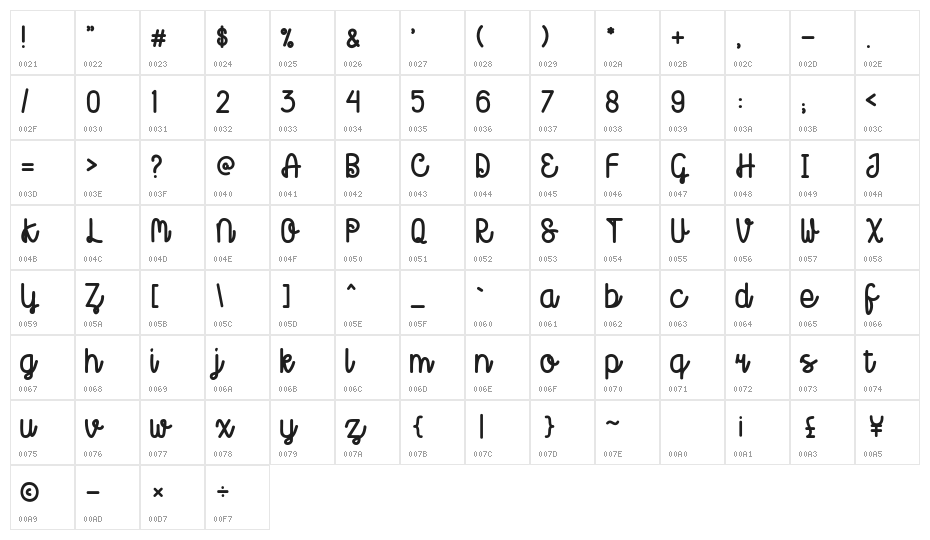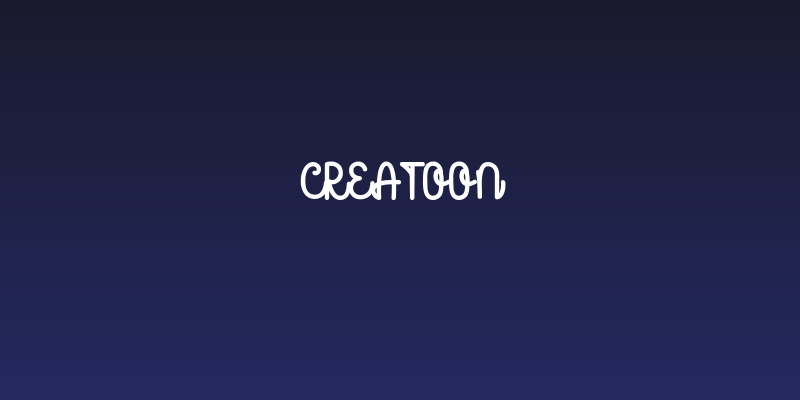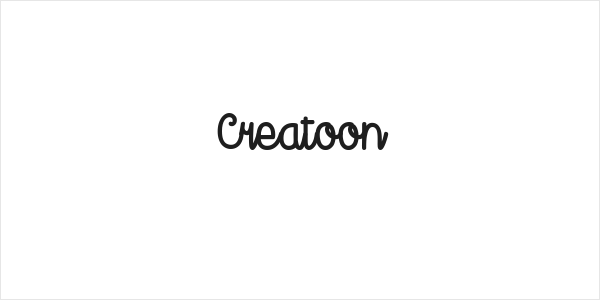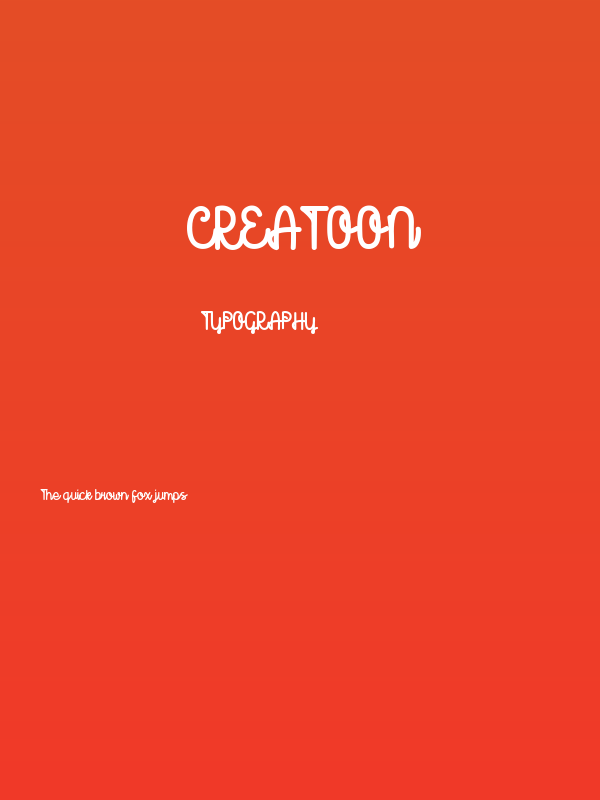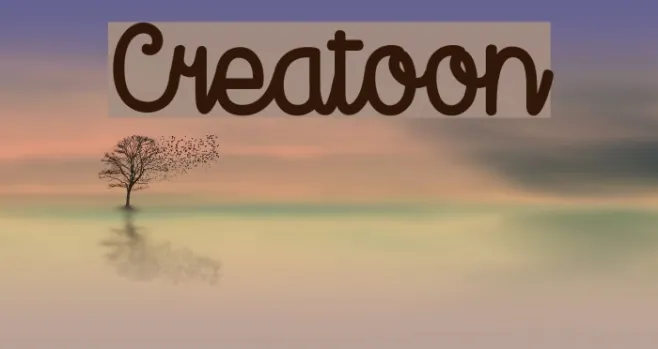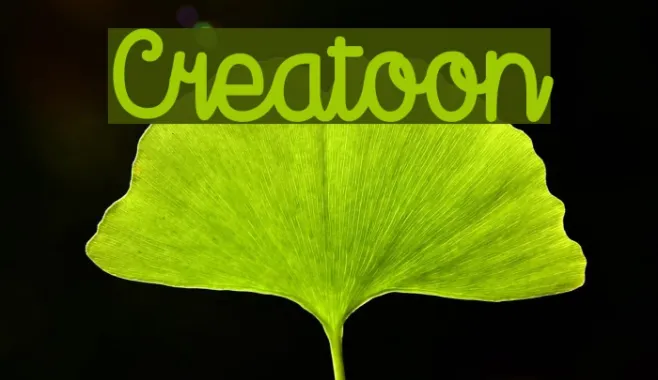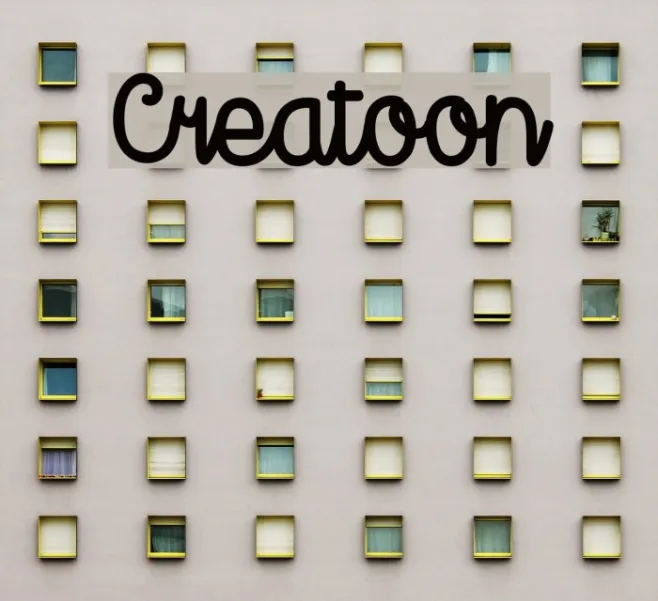
Creatoon Font
Creatoon Description
This playful and whimsical font features a bold, rounded style with a hand-drawn appearance. The characters are interconnected, giving a sense of fluidity and movement. The uppercase letters are slightly larger and more pronounced, while the lowercase letters maintain a consistent flow. Numbers and special characters are designed to match the playful aesthetic, making the font suitable for creative and informal projects. The overall look is friendly and approachable, with a touch of cartoonish charm.
| Proposed Projects | Ideal for children's books, playful branding, greeting cards, and creative posters. |